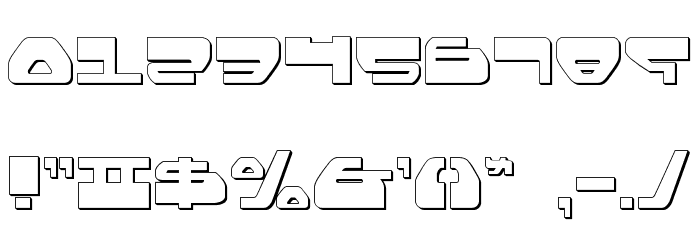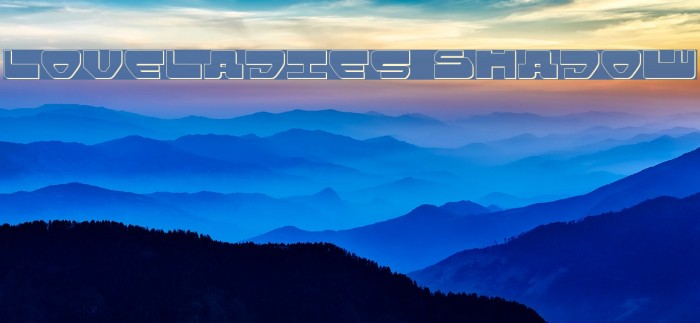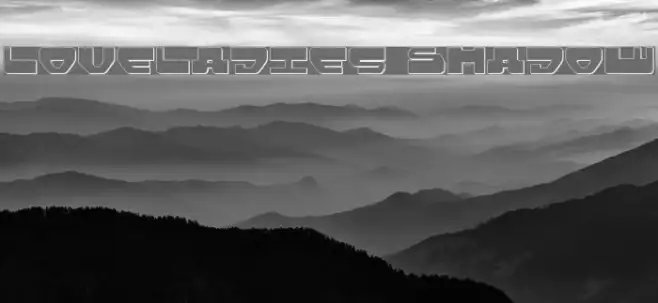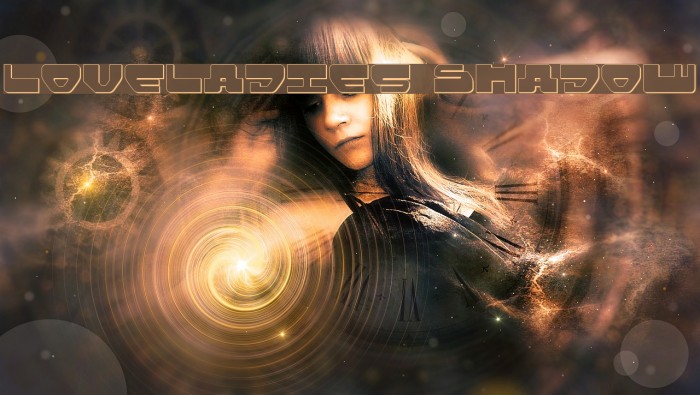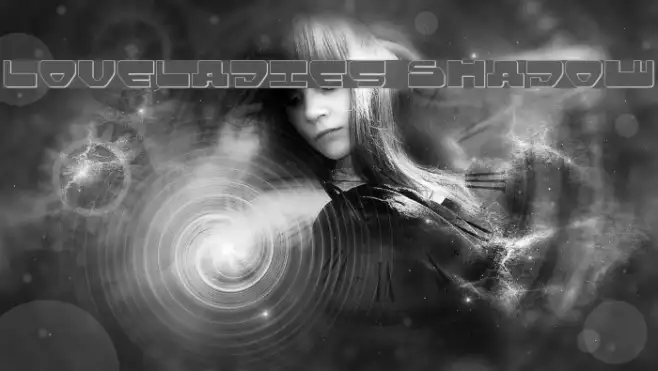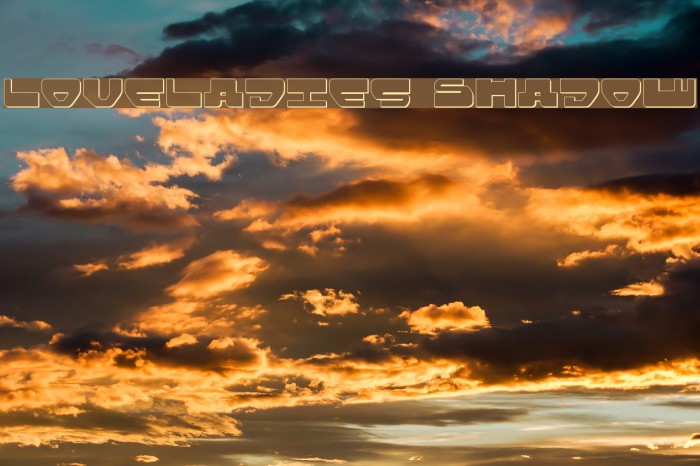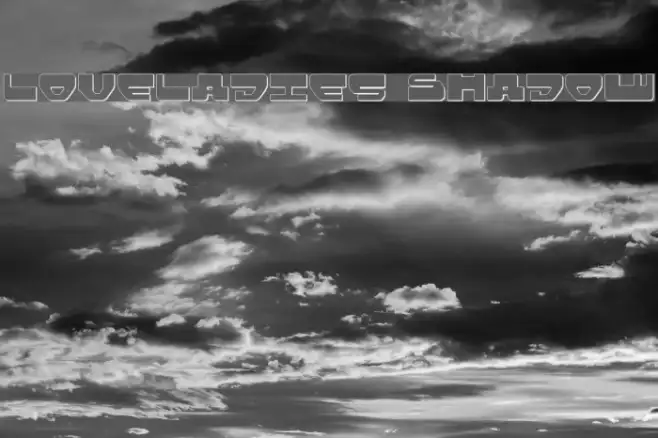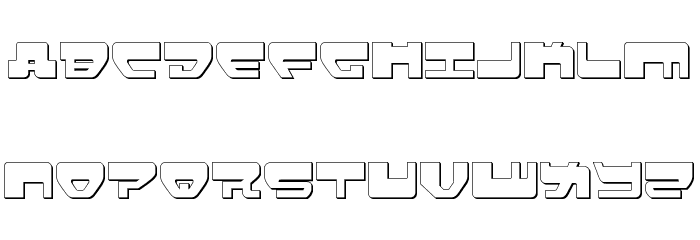
Loveladies Shadow Font
Loveladies Shadow Description
This font features a bold, geometric design with a shadow effect that gives it a three-dimensional appearance. The characters are outlined with a consistent thickness, creating a striking visual impact. The uppercase and lowercase letters share a similar structure, emphasizing angular and block-like shapes. The numbers and special characters maintain the same stylistic approach, ensuring uniformity across all elements. This font's unique style makes it ideal for attention-grabbing designs.
| Proposed Projects | Ideal for posters, logos, video game graphics, and futuristic-themed designs. |